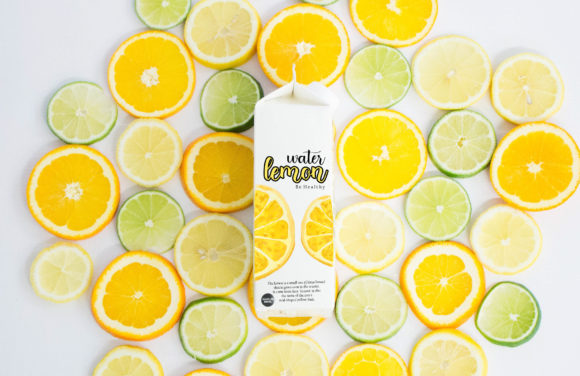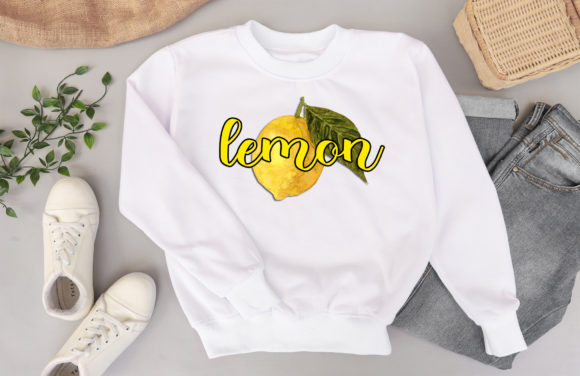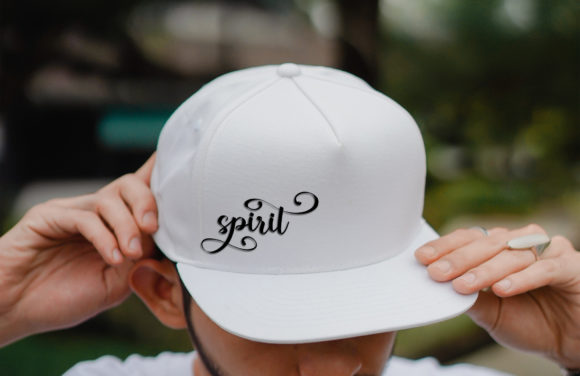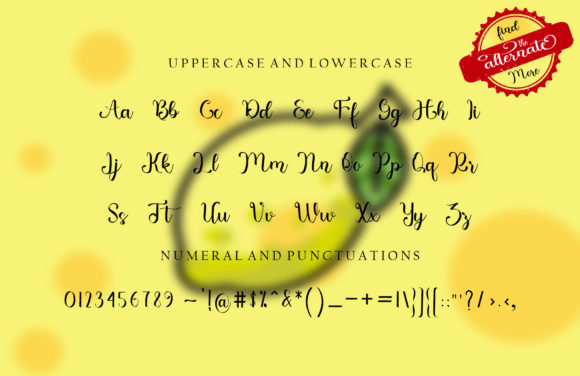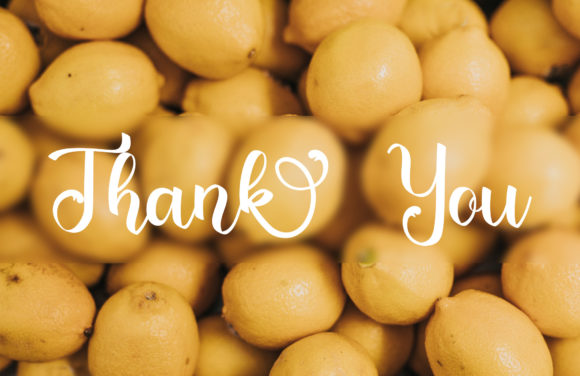
Introduction to Lemonilo Font
Have you ever been in the midst of a creative project, struggling to find the perfect font to bring your vision to life? You’ve scrolled through countless options, only to end up with a design that feels… meh. That’s where the Lemonilo Font comes in – a game-changing script font that will elevate your designs and leave a lasting impression.
With its elegant, contemporary atmosphere and impeccable form, Lemonilo Font is the perfect addition to any design project. Inspired by timeless classic calligraphy, this font is balanced and varied, ensuring that your designs stand out from the crowd. Whether you’re working on a personal project or a high-end commercial campaign, Lemonilo Font is the perfect resource to take your creativity to the next level.
Key Features of Lemonilo Font
- High-quality design resource ideal for creative projects and graphic designs.
- Supports a wide range of languages and characters for global design applications.
- Unique characteristics include its playful and modern style, making it perfect for digital designs, logos, and branding materials.
Honest Review: Lemonilo Font
- ✨ Unique and creative design: The Lemonilo Font is perfect for adding a touch of whimsy to any design project.
- ✨ High quality: The font is crisp and clear, making it perfect for printing or digital use.
- ⚠️ Limited font sizes: The font may not be suitable for large-scale use, such as billboards or huge prints.
- ⚠️ May not be suitable for formal projects: The playful style of the Lemonilo Font may not be suitable for formal or professional projects.
Tips for Getting the Most Out of the Lemonilo Font
For the best results, use the Lemonilo Font on a transparent background to allow the text to stand out. You can also experiment with different font sizes and styles to add visual interest to your designs.
The Lemonilo Font is perfect for use in creative projects such as logo designs, social media graphics, and marketing materials. Its high-quality design and transparent background make it a great choice for designers looking to add a professional touch to their work.